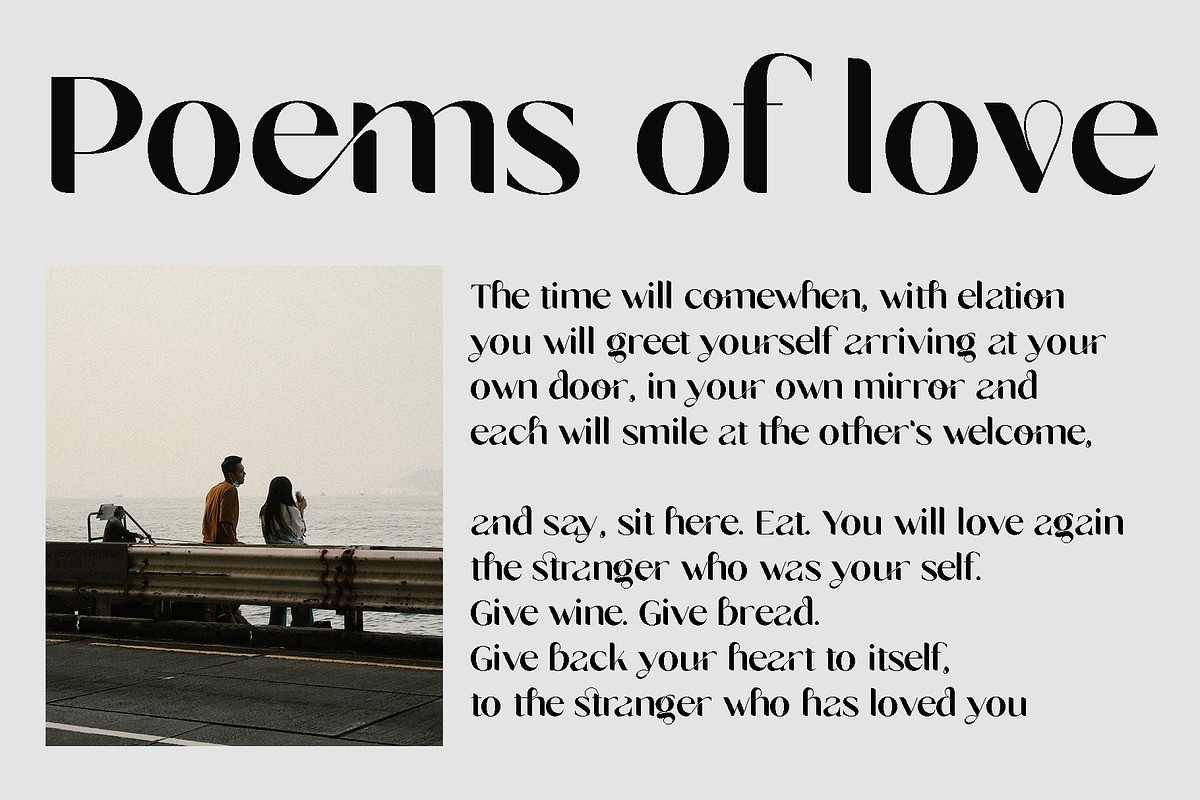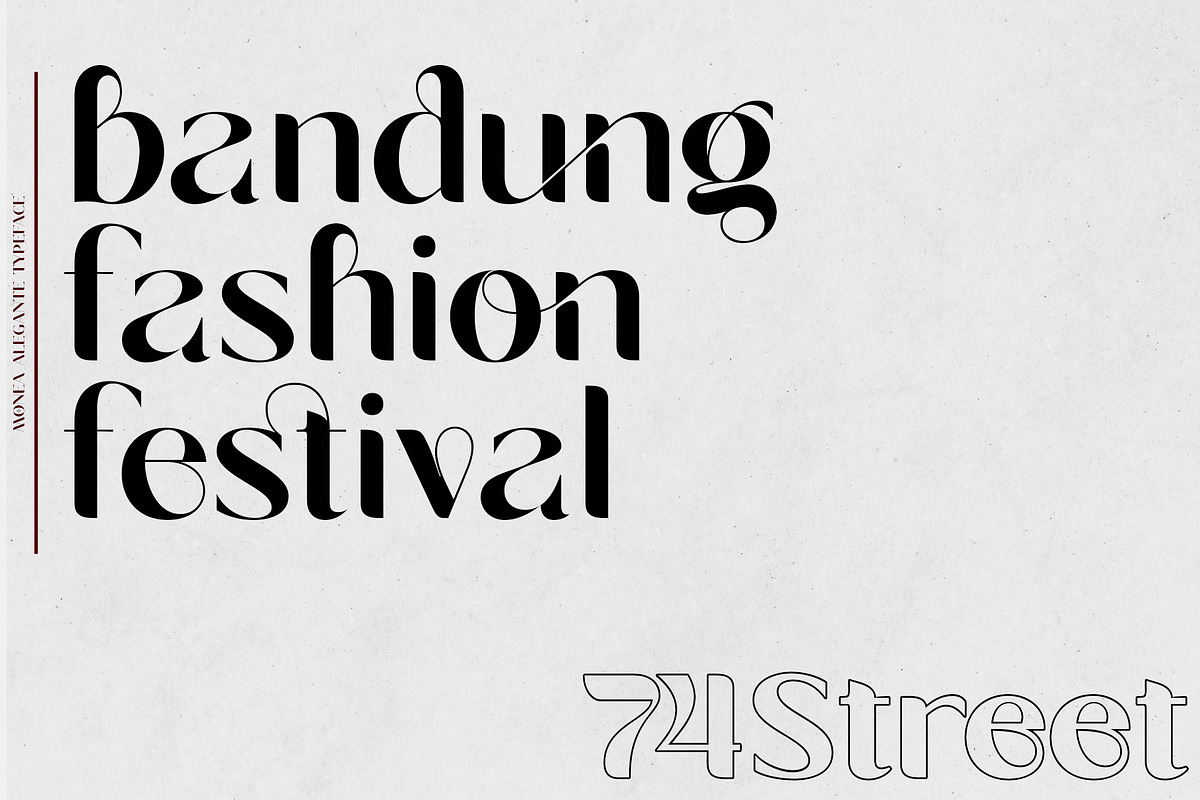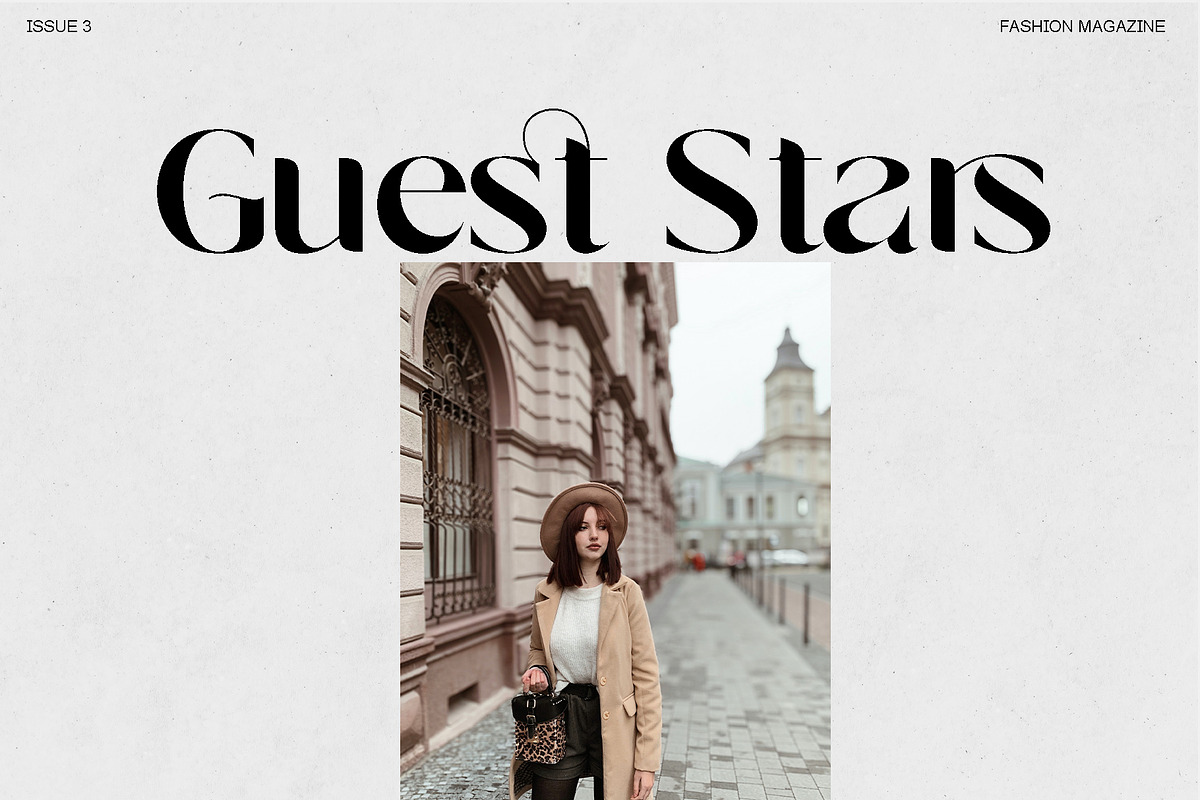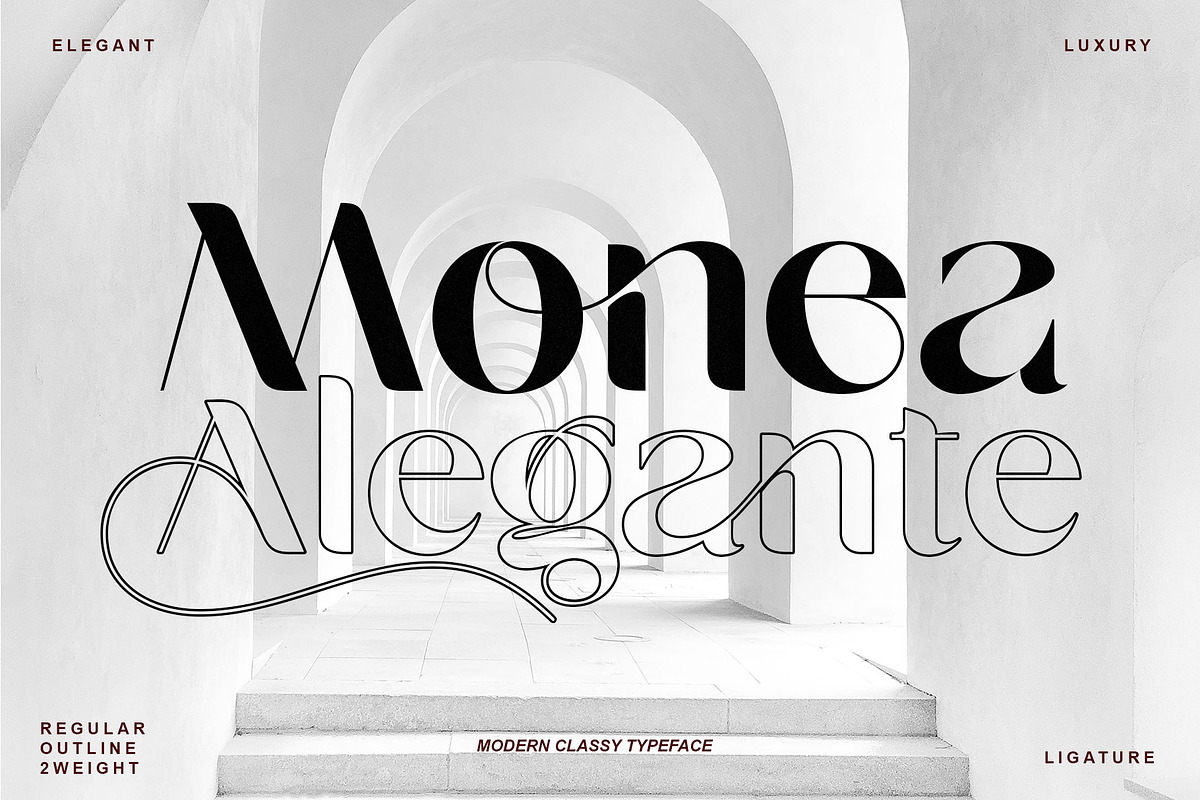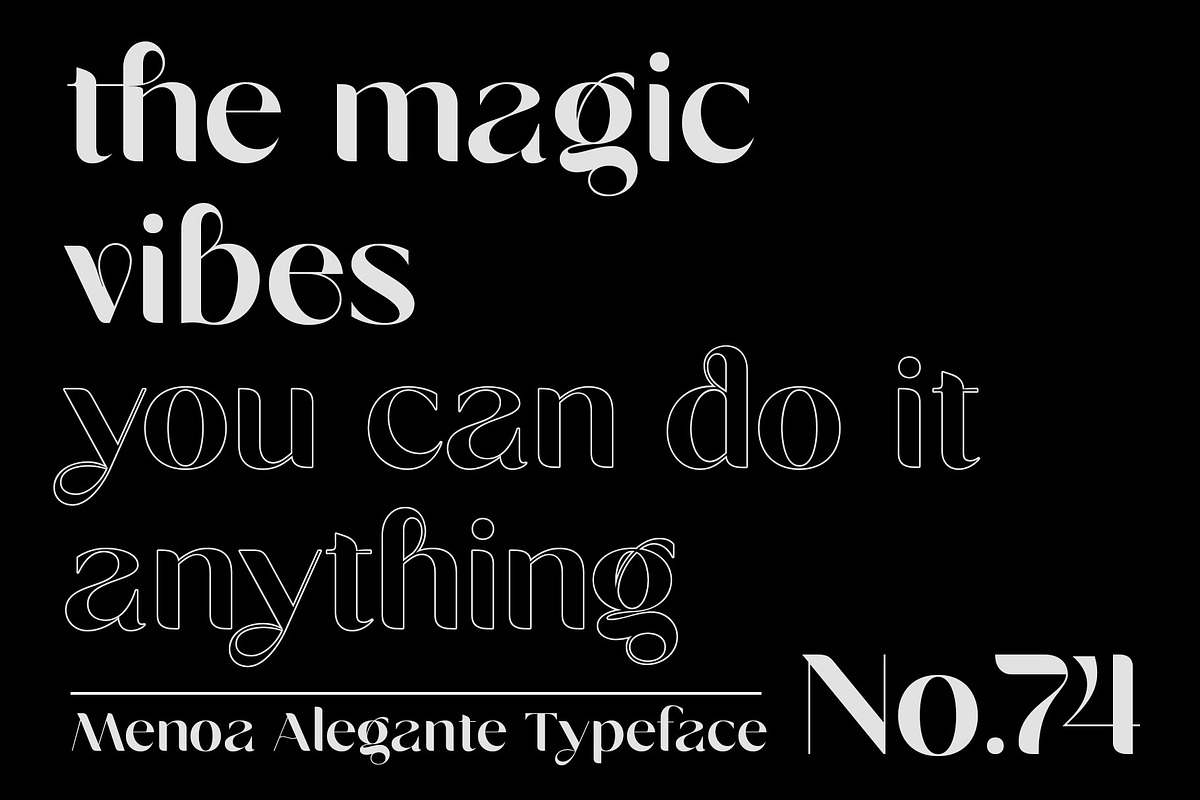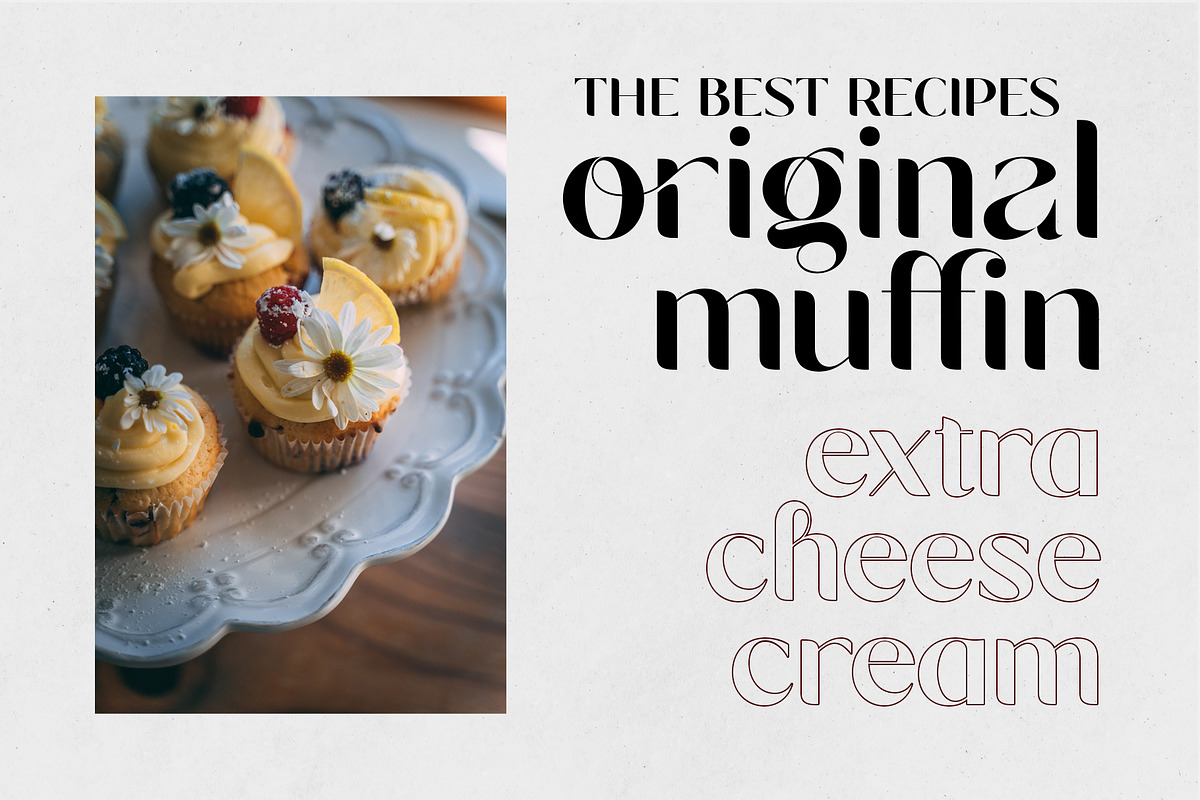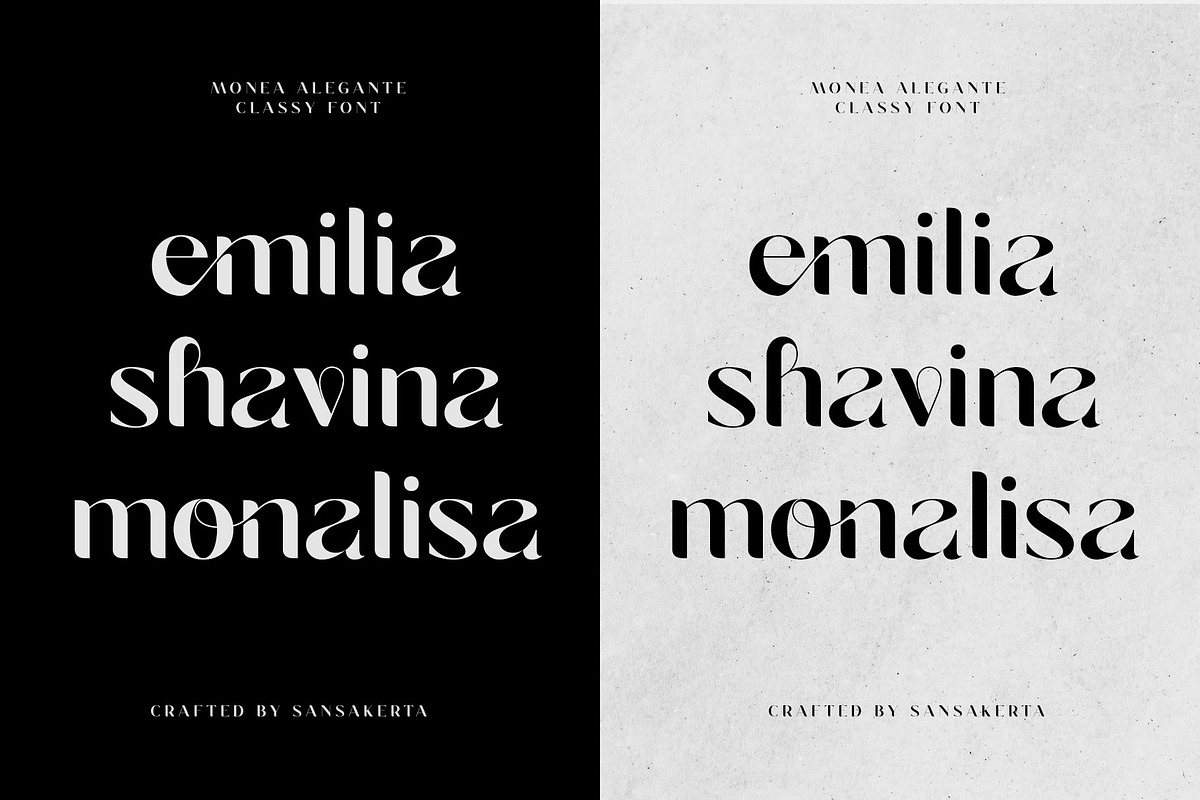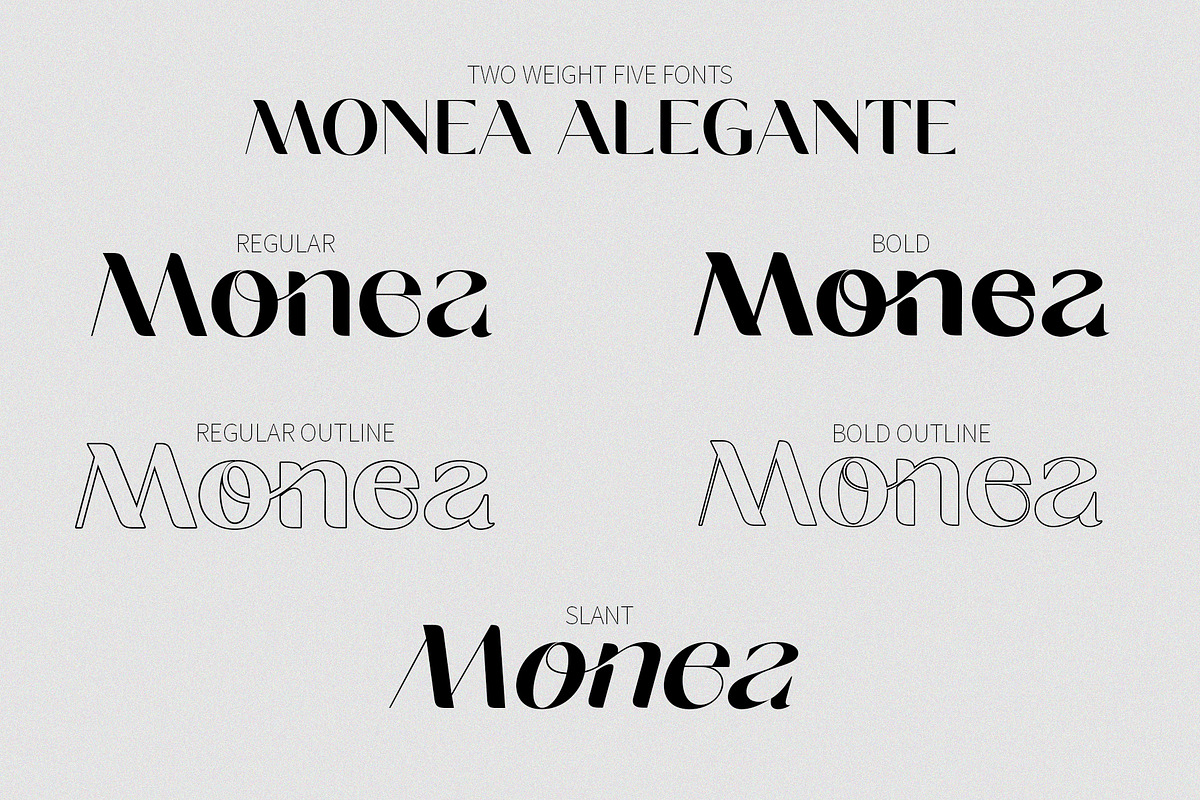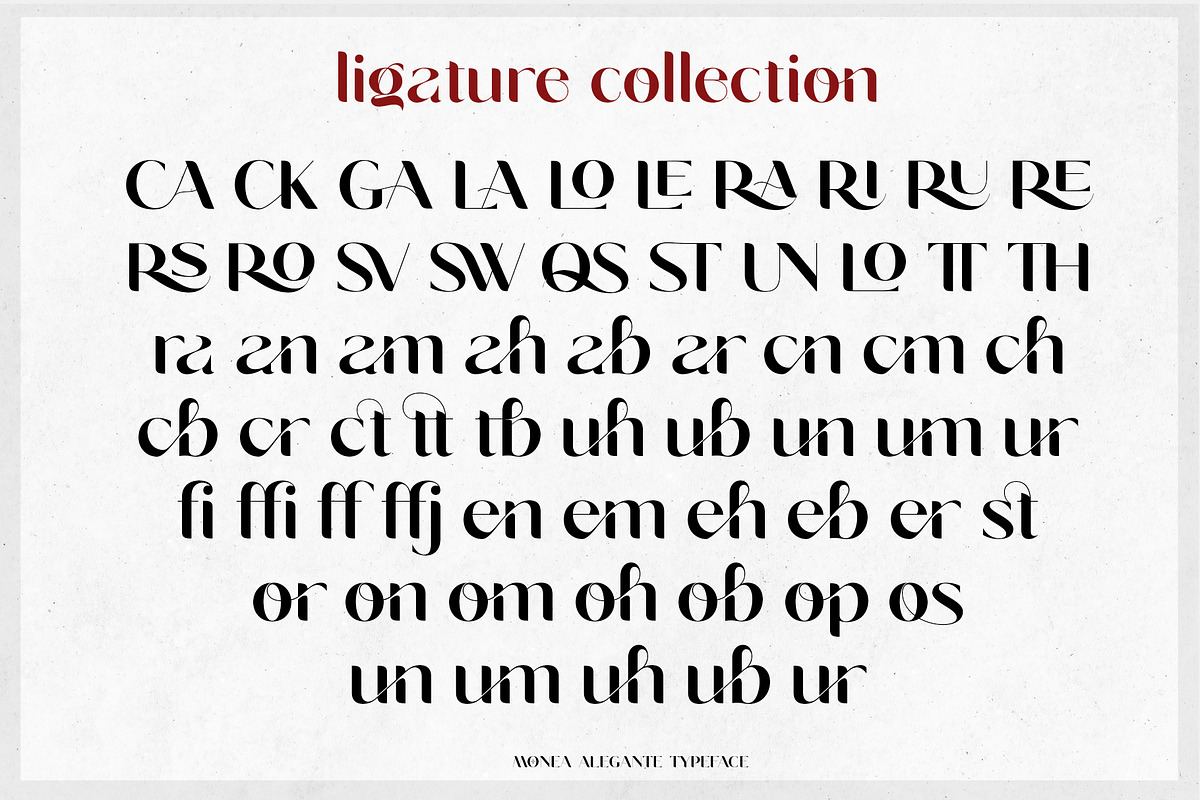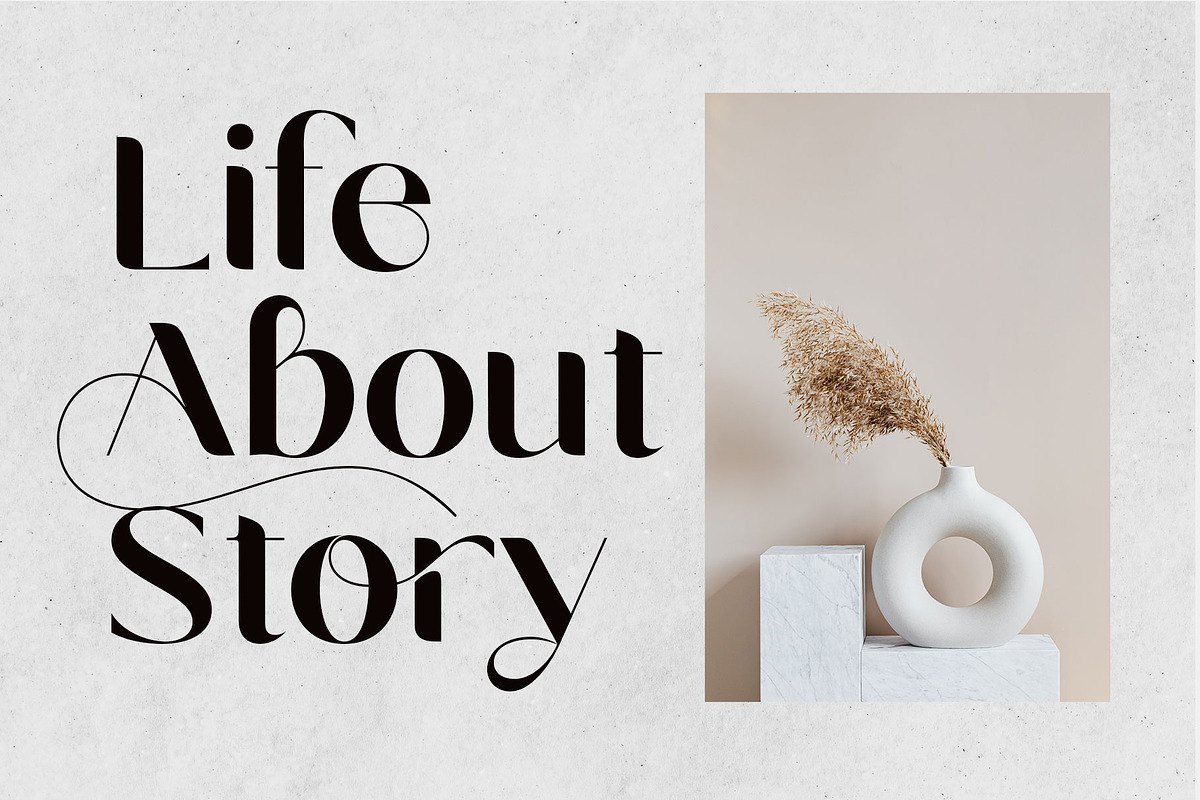
Monea Alegante is a Bold Minimalist Elegant Modern vintage font with beautiful ligatures, tons of special alternative glyphs, ornament and multilingual support. It's a very versatile font that works great in large and small sizes. Perfect for branding projects, Logo design, Clothing Branding, product packaging, magazine headers, or simply as a stylish text overlay to any background image.